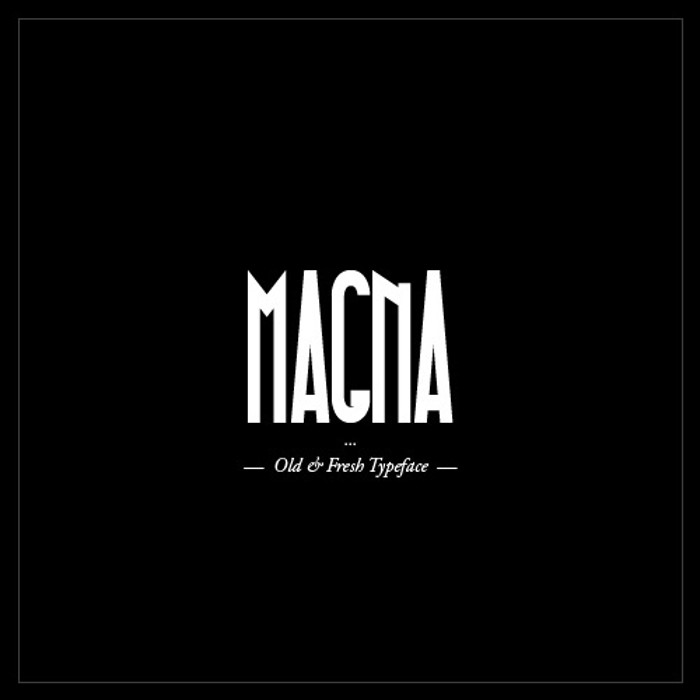
Magna Font
Black Condensed Style
MAGNA is a free typeface created in April 2012 and based on a "vintage" style. The typeface contains all main characters (from A to Z - capitals & lowercases are the same for the moment) and numbers (from 0 to 9).
The following pictures show you how are the height and the width of the typeface and some examples on how it could be included on a logo, photo or anything else.